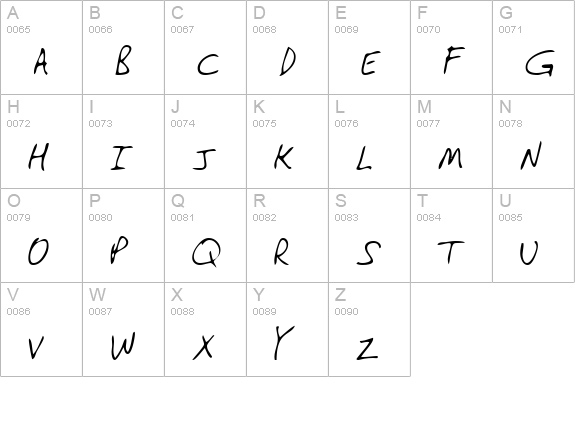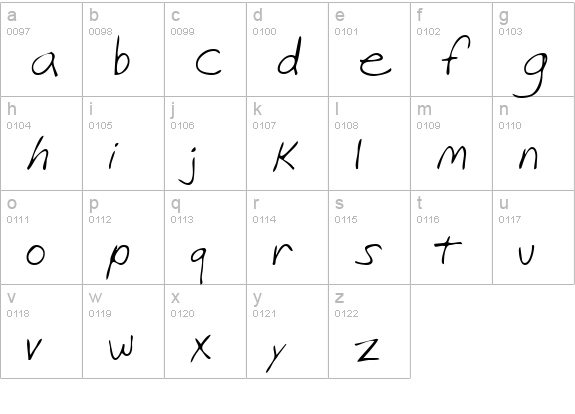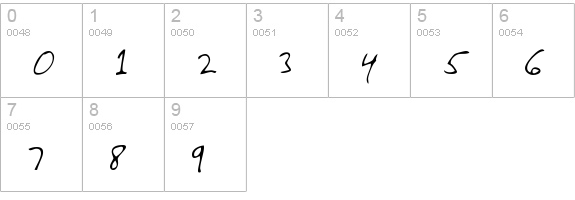
PaulasHand Regular Font Details
PaulasHand Regular is the standard, neutral variant in the PaulasHand typeface family \xE2\x80\x94 well suited to general body text, paragraphs, and standard typographic work.
PaulasHand Regular is a delightful font that exudes elegance and charm. With its smooth curves and graceful strokes, this font is perfect for adding a touch of sophistication to any design project. Whether you're creating invitations, logos, or social media posts, PaulasHand Regular will effortlessly elevate your work to new heights. This font is not only visually stunning but also incredibly versatile. Its clean lines make it easy to read, while its unique character adds a touch of personality to your text. Whether you're aiming for a classic or contemporary look, PaulasHand Regular will be the perfect choice. One of the best things about PaulasHand Regular is that it is freely available to download at FontsMarket.com. You can easily access and use this font without any hassle. Whether you're a professional designer or a hobbyist, this free font allows you to add a touch of elegance to your projects without breaking the bank. So why wait? Download PaulasHand Regular today and unleash your creativity. Let this font be the secret weapon in your design arsenal, helping you create stunning visuals that will leave a lasting impression.